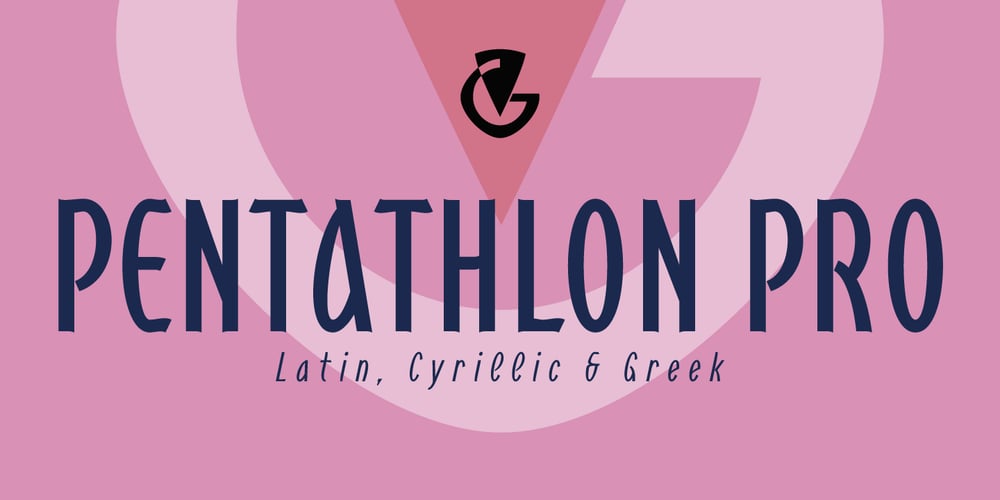
Pentathlon Pro
Pentathlon Pro font
Pentathlon Pro Font Family was designed by Vangelis Dim. Gardikiotis and published by DBSV. Pentathlon Pro contains 14 styles and family package options. Strait passages second part… I tried in this fifth (that’s why she took the name “Pentathlon Pro”) consecutive font family to give her a character style with again a strait way of writing. Walking on the same considerations as the previous series (Khamai, Aeolus, Corset & Artios) I tried to give some sense of diversity for the strait passages of character: those fourteen style are the result. And in this family, the “Bold” with “Inlier” and “Bold Italic” with “Inlier Italic” engage in the same way as did the “Layered font families” in the previous series. Also I added a design statement for the twelve zodiac signs, only presented in the Bold, Inlier, Bold Italic and Inlier Italic style. This series is composed of fourteen styles with 628 glyphs each, with true italics and supports Latin, Greek and Cyrillic.